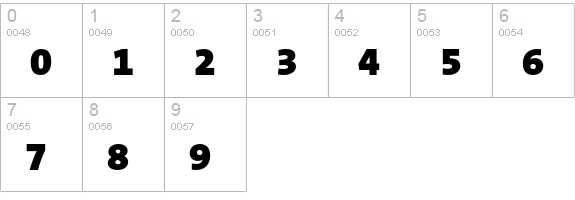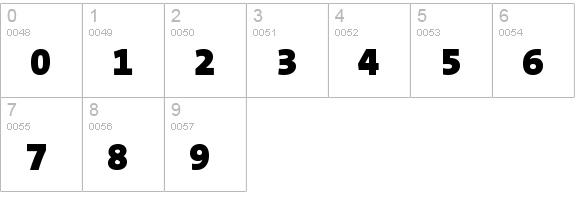
TheSans B9 Black Font Details
TheSans B9 Black is a maximum-weight, dramatic variant in the TheSans typeface family \xE2\x80\x94 well suited to maximum-impact headlines, posters, and packaging.
TheSans B9 Black font is a sleek and modern typeface that exudes strength and sophistication. With its bold weight and clean lines, it commands attention and makes a statement in any design project. This versatile font is perfect for headlines, logos, posters, and other display purposes. TheSans B9 Black font is designed with legibility in mind, ensuring that your message is clear and easy to read. Its well-balanced proportions and distinct letterforms make it suitable for both digital and print applications. Whether you're creating a website, designing a magazine layout, or crafting a branding identity, this font will elevate your project to new heights. One of the best things about TheSans B9 Black font is that it is free to download. You can easily access this amazing font at FontsMarket.com, where it is readily available for you to enhance your creative endeavors. With just a few clicks, you can have this font at your fingertips, ready to add a touch of elegance and professionalism to your designs. Don't miss out on the opportunity to use TheSans B9 Black font in your next project. Its bold and commanding presence will captivate your audience and leave a lasting impression. Download it for free now at FontsMarket.com and unlock a world of design possibilities.